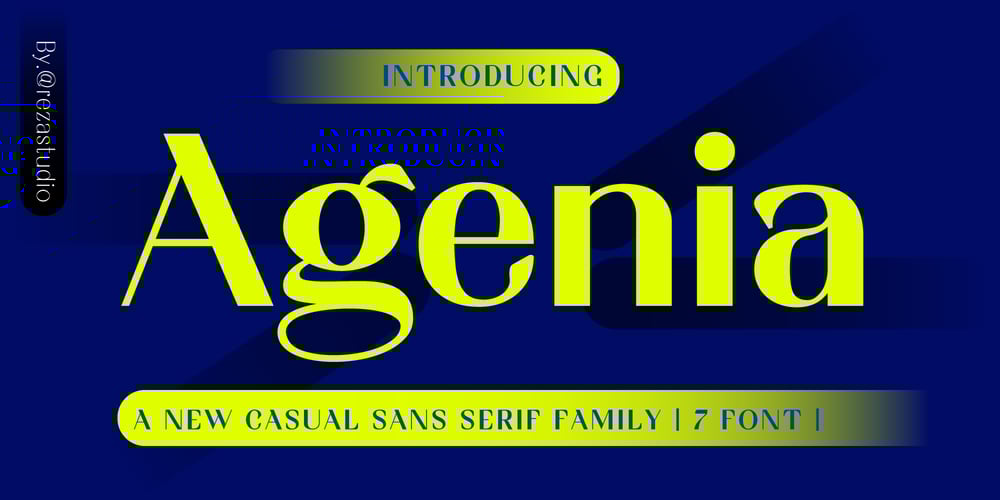
Agenia Font Family was designed by Reza Mukhtazar and published by Rezastudio. Agenia contains 7 styles and family package options. “Agenia Font : Elegant, Modern & Expressive”Get the unique and attractive Agenia font! Carefully designed to give an elegant and modern touch to your work. This font is suitable for various purposes such as:- Graphic design- Logos- Brochure- Name card- Website- Social mediaSuperiority- Unique and expressive design- Easy to read and understand- Flexible for various applications- Fast technical supportContact us :If you have any questions or need support, contact us via rezamukhtazar6@gmail.com UPDATECheck this page regularly for updates and exciting promotions!